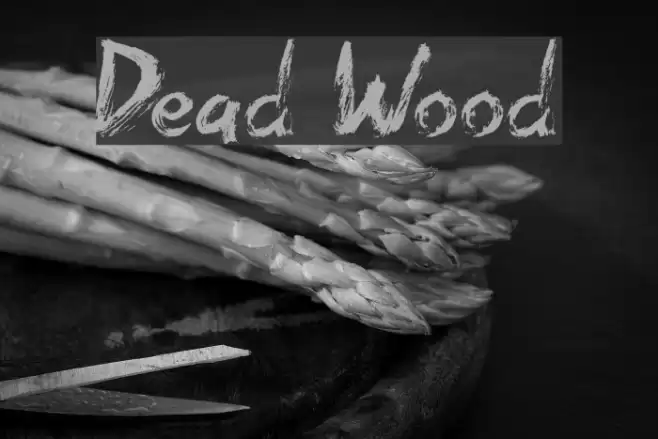
Dead Wood Font
Dead Wood Description
This font features a rugged, distressed appearance, reminiscent of weathered wood or brush strokes. The characters are bold and uneven, with a hand-drawn quality that gives them a raw, organic feel. The uppercase and lowercase letters maintain a consistent style, with jagged edges and varying stroke thicknesses that add to the font's dynamic and energetic look. The numbers and special characters follow the same aesthetic, making the font suitable for creating a cohesive design theme. Its unique style makes it stand out, perfect for projects that require a bold and artistic touch.
A rugged, distressed font with a hand-drawn, brush stroke appearance from Uncategorized fonts.
- Proposed Projects: Ideal for album covers, posters, branding for edgy or artistic products, and any design needing a bold, organic touch.